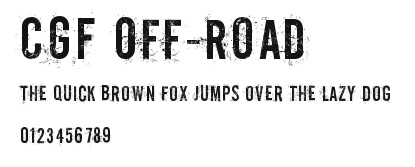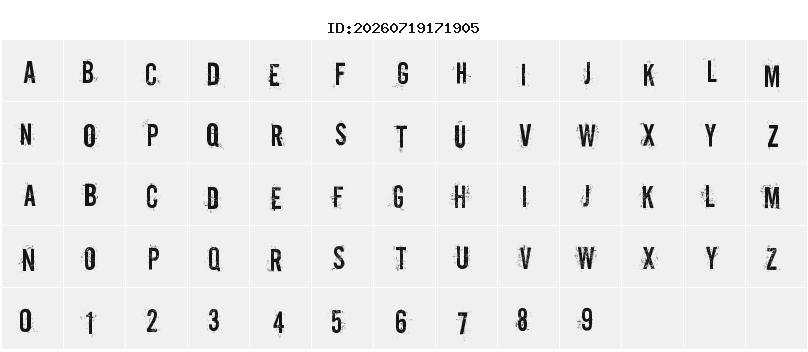
• Font Name: CGF Off-Road
About CGF Off-Road.ttf
CGF Off-Road.ttf is a modern, elegant sans-serif font designed for ultimate readability and visual harmony. Perfect for branding, headlines, web design, and print materials.